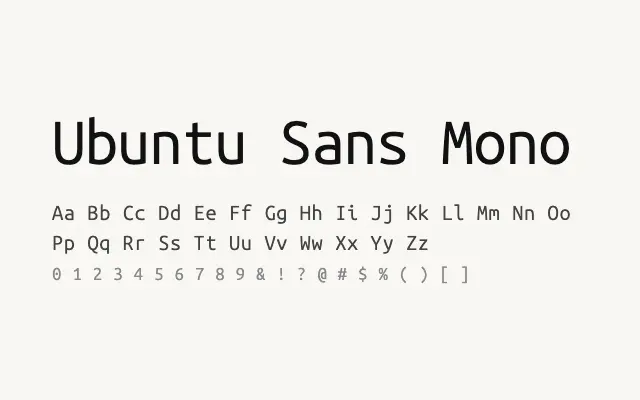
Ubuntu Sans Mono
Ubuntu Sans Mono is a contemporary humanist monospace with a generous weight range, suited to coding environments and technical UI work.
Building on the foundations of Ubuntu Mono, this updated companion to Ubuntu Sans offers four weights from Regular to Bold, providing more typographic control in code editors, terminals, and developer-facing interfaces. The humanist construction keeps it warmer and more readable than sterile geometric monospacers, while Cyrillic and Greek support extends its utility across international projects. It is the natural monospace choice for any project built on the Ubuntu Sans system.
A modern monospace companion to Ubuntu Sans, offering a wider weight range than the older Ubuntu Mono and designed for contemporary coding and UI applications. Retains the humanist sensibility of the Ubuntu family in a fixed-width format.